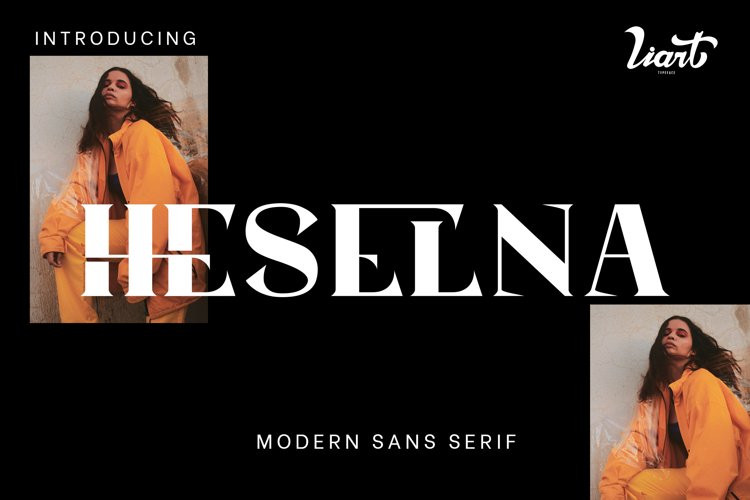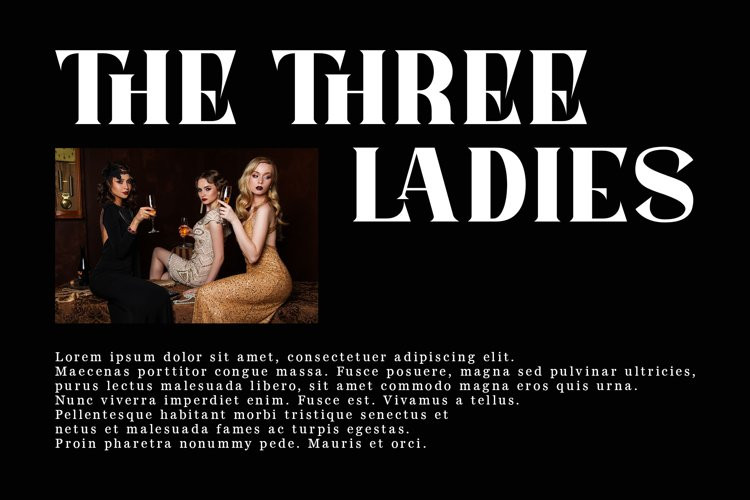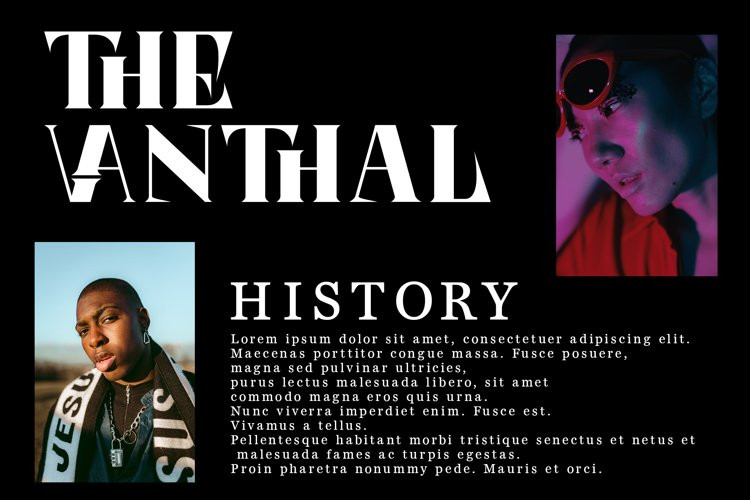
Heselna Font
Meet our newest product, we call this product Heselna font.
Heselnas font are serif typeface font
Whit a uniqe touch and assertive
Heselna font is very nice to use on:
fashion magazine,logos, ,and photography,landing page,fliyer